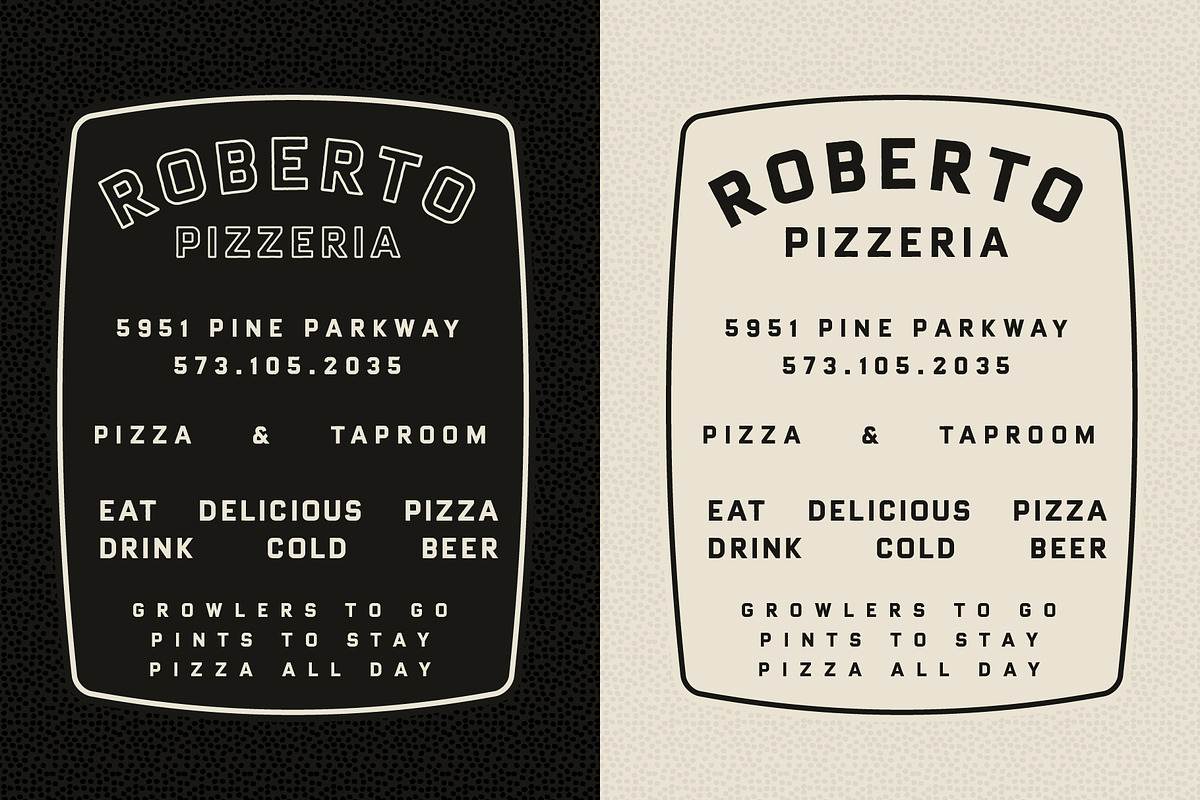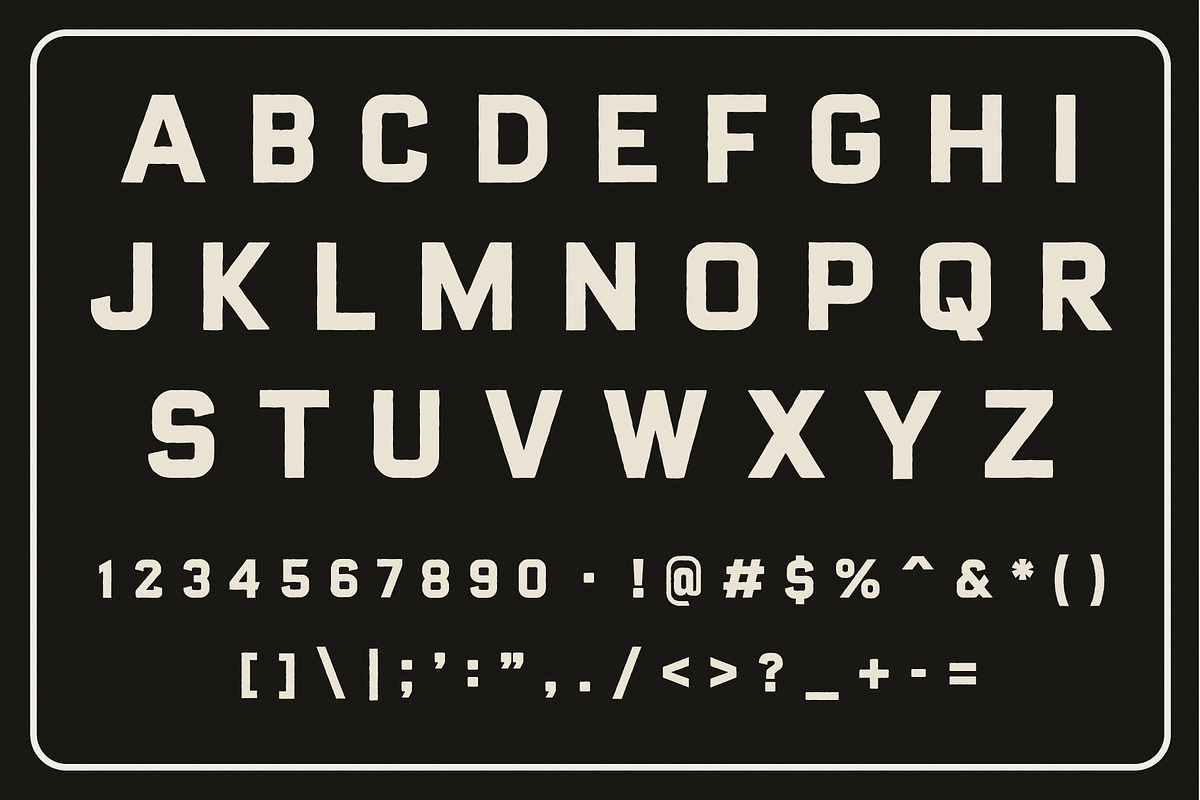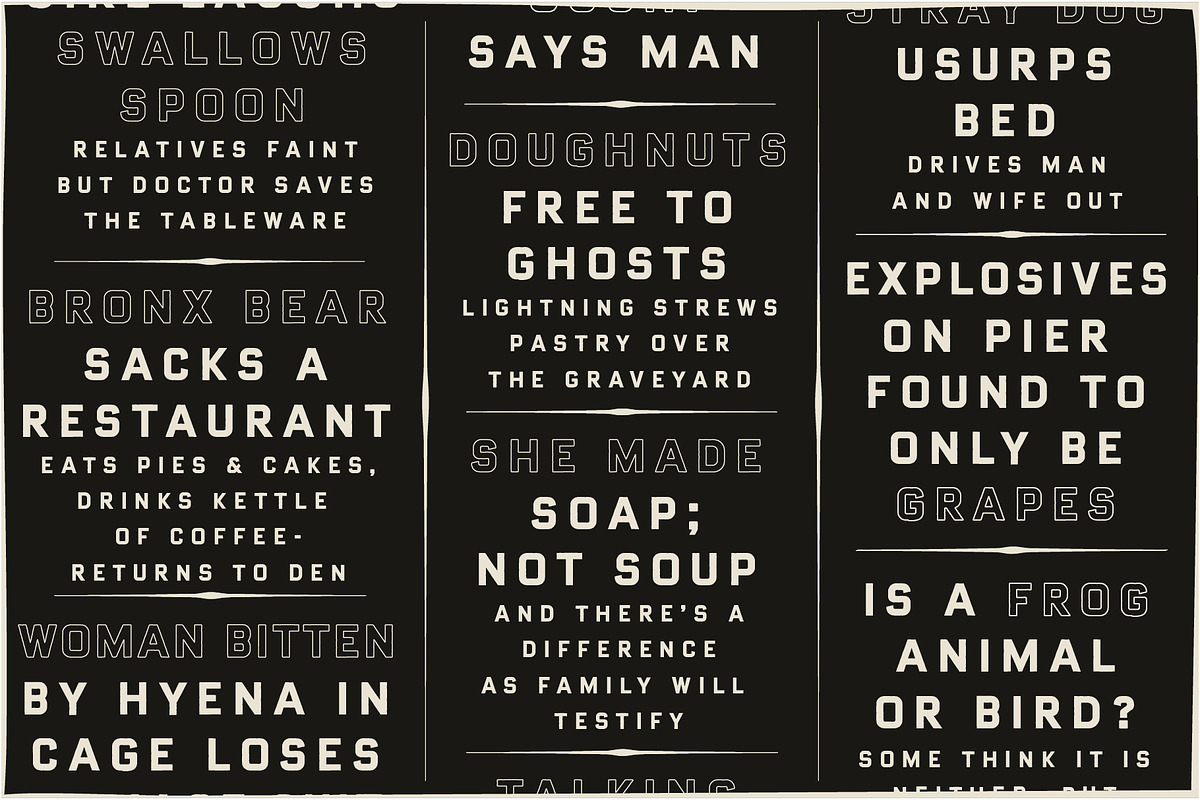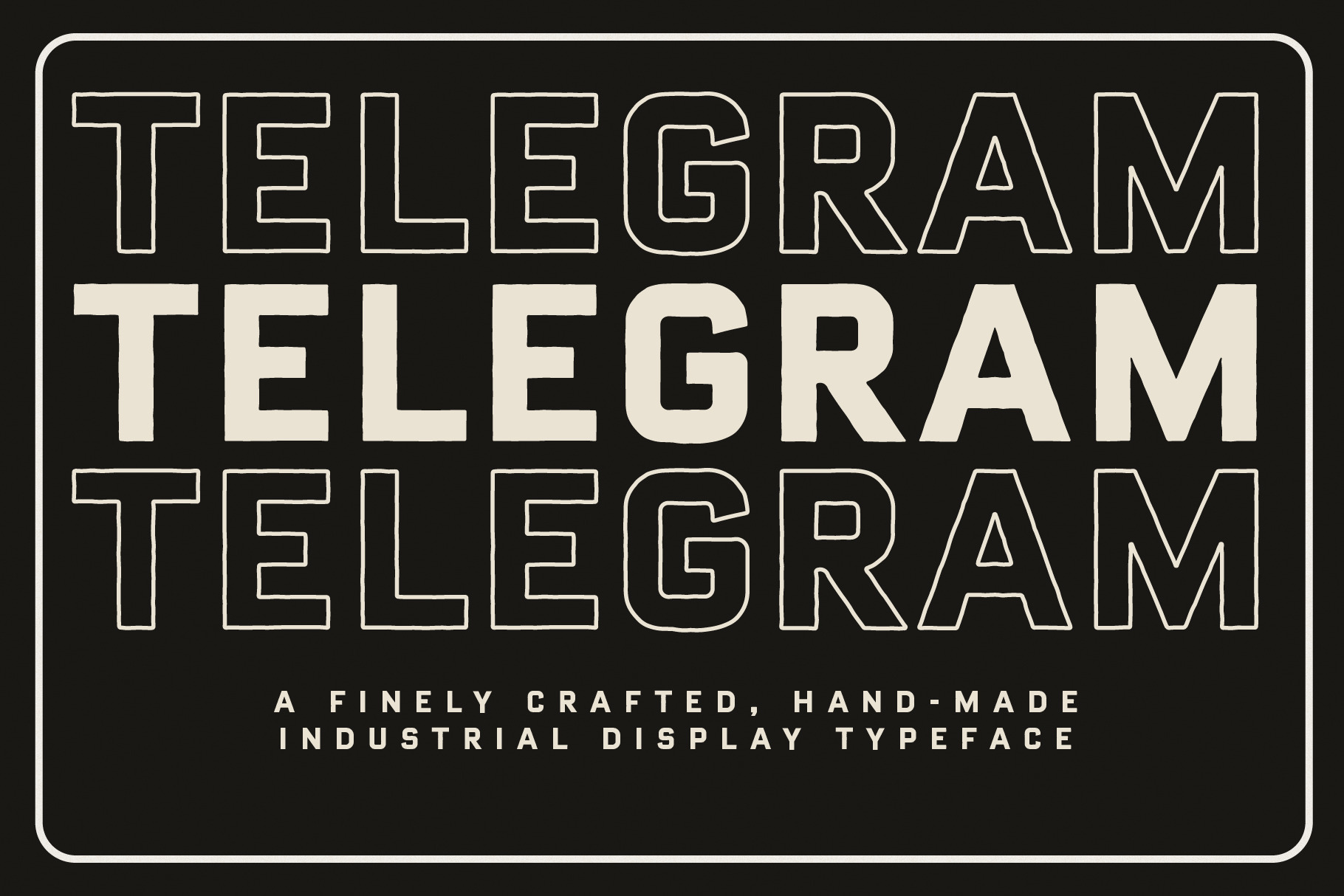
Telegram Font
Telegram is a font that seamlessly merges industrial grit with a friendly demeanor, drawing inspiration from classic telegram typography. This unique typeface echoes the timeless elegance of traditional telegram headline typography while incorporating a contemporary distressed aesthetic, resulting in a harmonious blend of ruggedness and approachability.
Currently, this is a limited glyphs set – containing all caps letterforms A-Z as well as numbers 0-9 and limited punctuation.